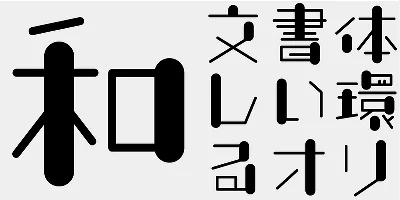
AB Pochi Font
AB Pochi Font is a playful and modern sans-serif typeface that features rounded edges and a friendly, casual vibe. Its clean lines and contemporary design make it perfect for creative projects, including branding, packaging, social media graphics, logos, and web design, where a fresh and approachable style is needed.